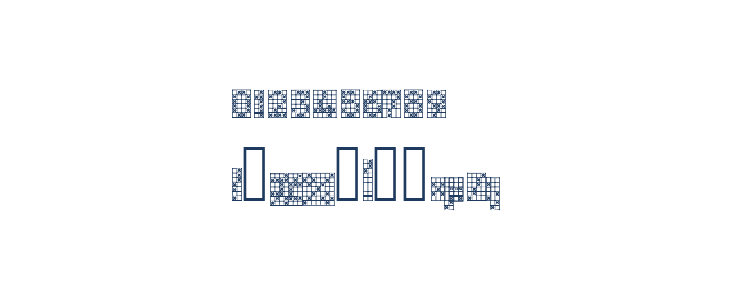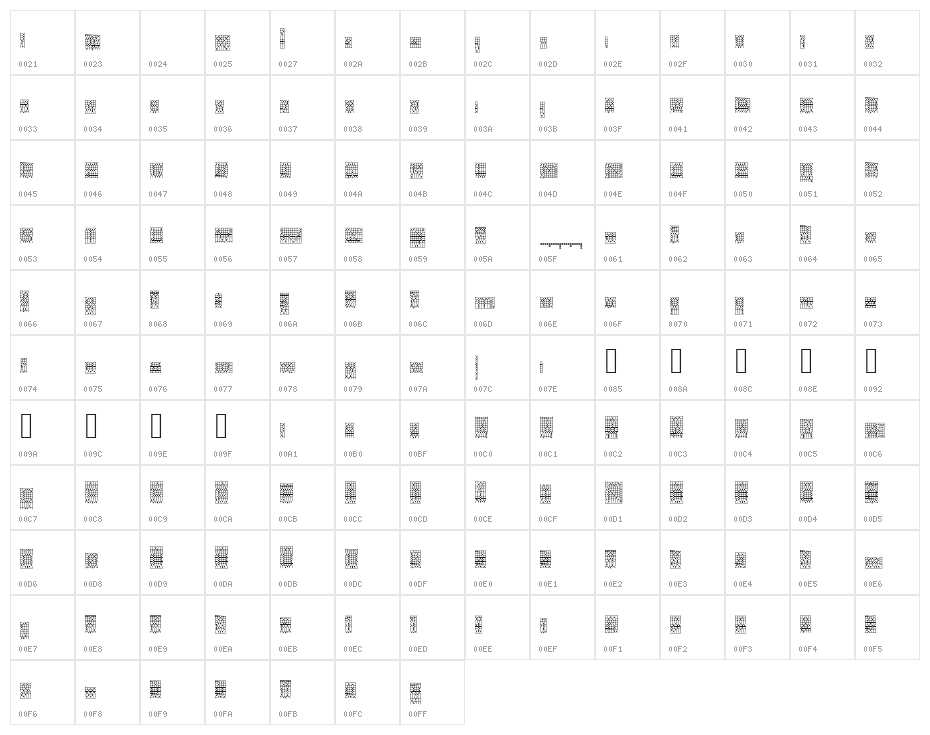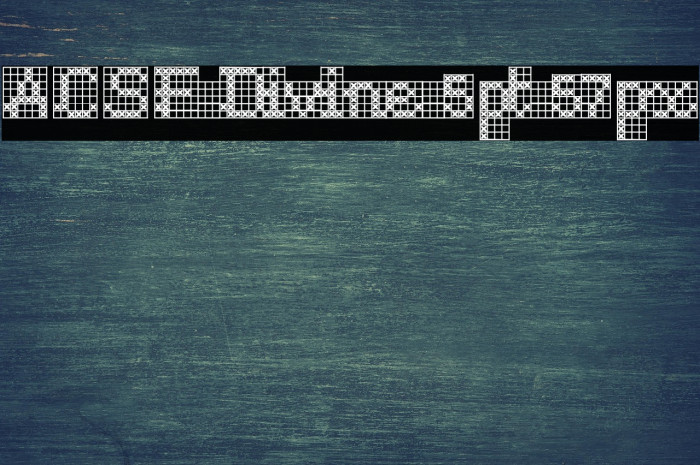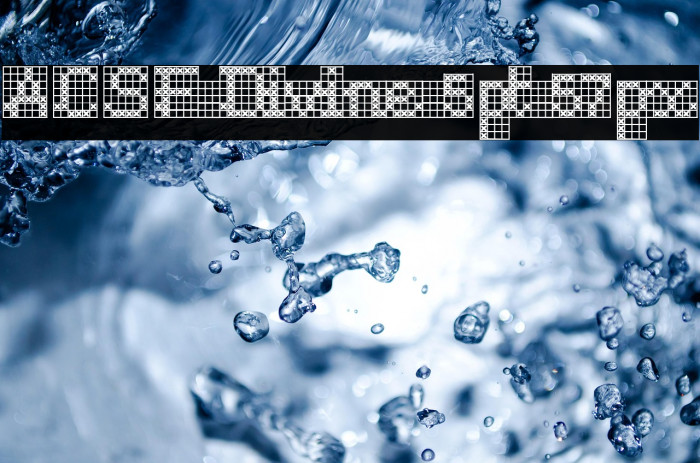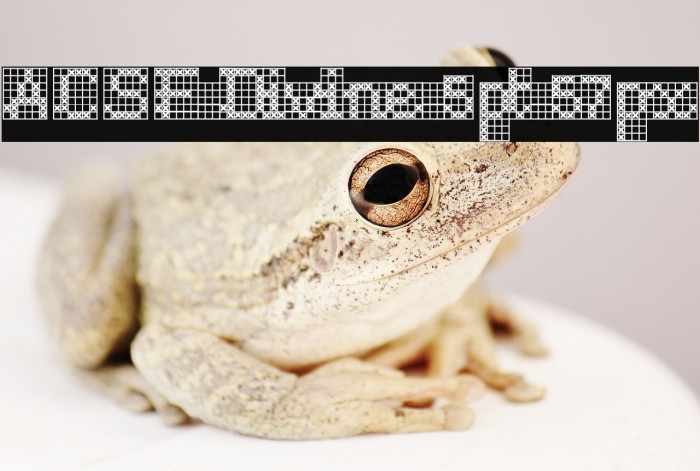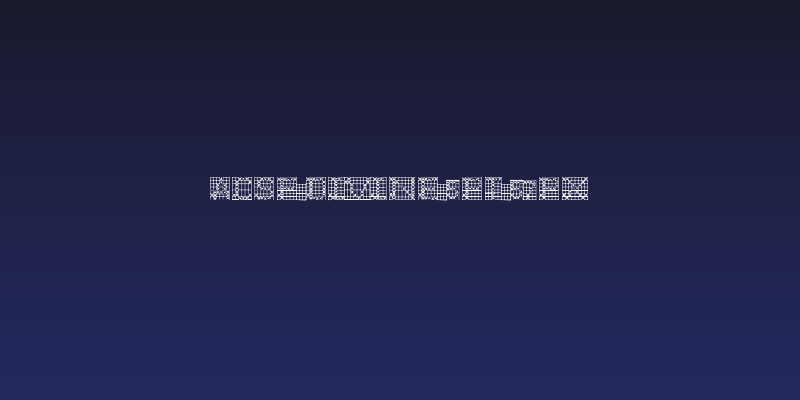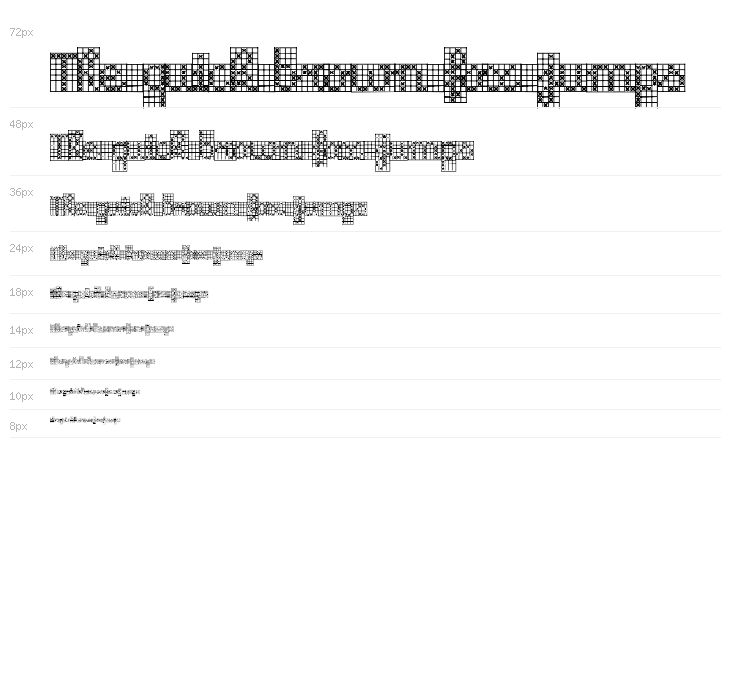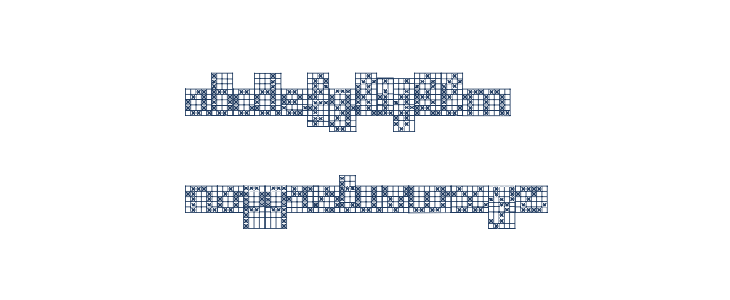
ACSF Divine 5pt 57px Font
ACSF Divine 5pt 57px Description
This font features a unique grid-based design, where each character is constructed using a series of small squares and lines, creating a pixelated and geometric appearance. The characters are uniform in height and width, giving the font a monospaced feel. The intricate pattern within each letter adds a decorative touch, making it stand out for creative and artistic projects. The font maintains a consistent structure across uppercase, lowercase, numbers, and special characters, ensuring readability while offering a distinct visual style.
| Proposed Projects | Ideal for digital art, retro-themed designs, video game graphics, and creative posters. |